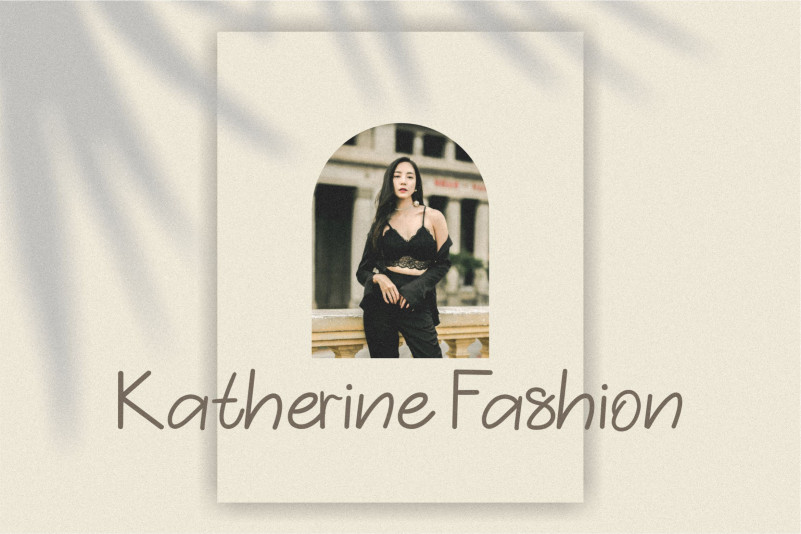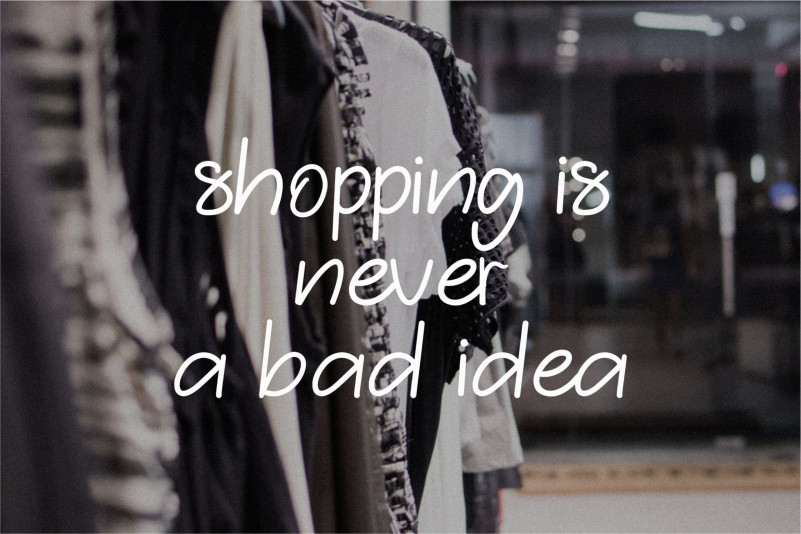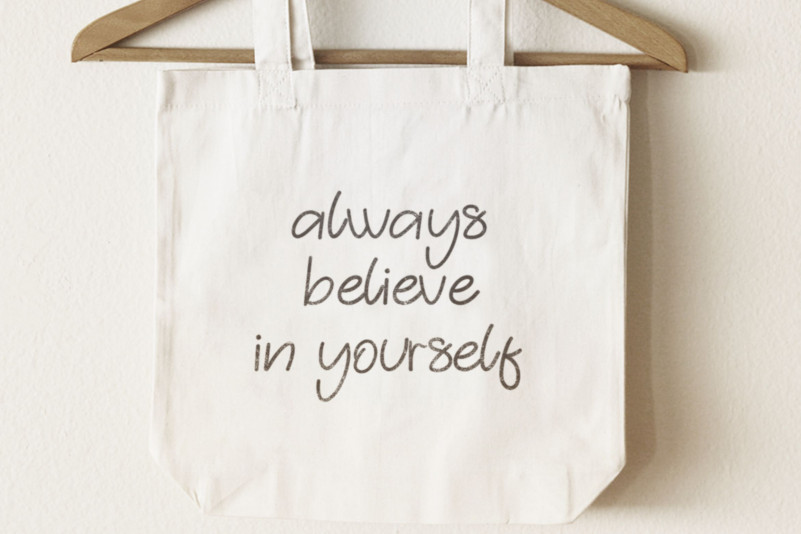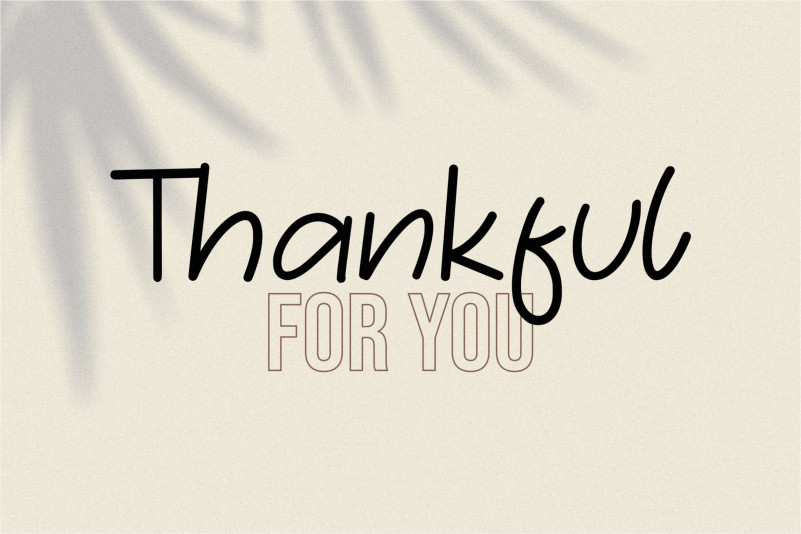
Impeccable Handwritten Font
Impeccable can be used for wide ranges of application, such as wedding design, branding project, logo, poster, name card, invitations, social media posts, and others.